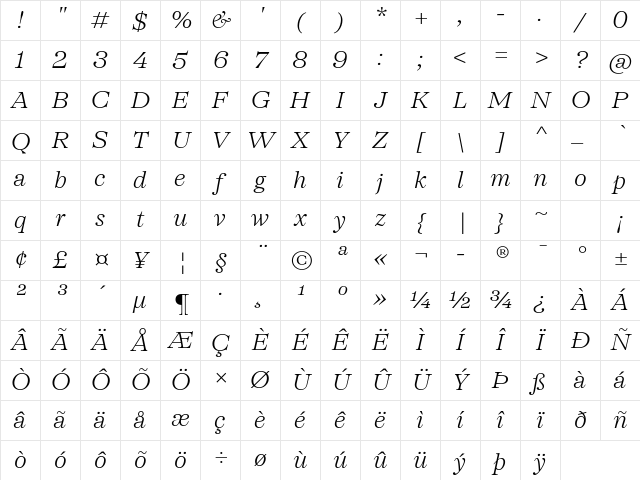
Complete SFT Schrifted Serif TRIAL SH SH Light Italic glyph index. Displaying only characters natively supported by SFT Schrifted Serif TRIAL SH SH Light Italic font.
SFT Schrifted Serif TRIAL SH SH Light carries the refined structure of traditional serif typography, with bracketed terminals and considered proportions that communicate credibility and craft. The slanted form adds forward momentum and visual energy. Its slender proportions lend an understated elegance to any composition.